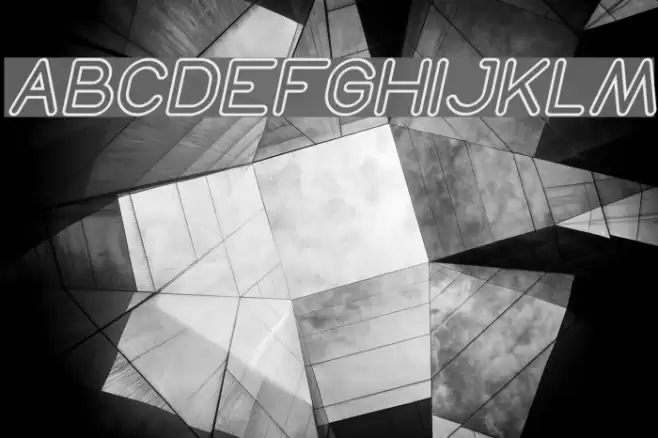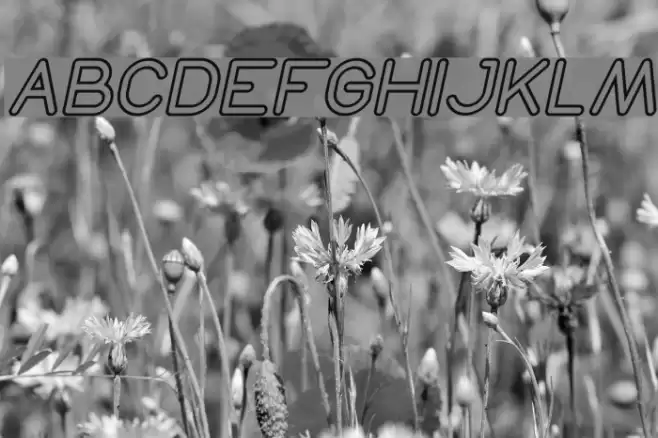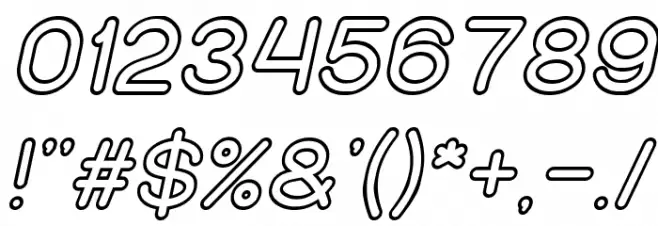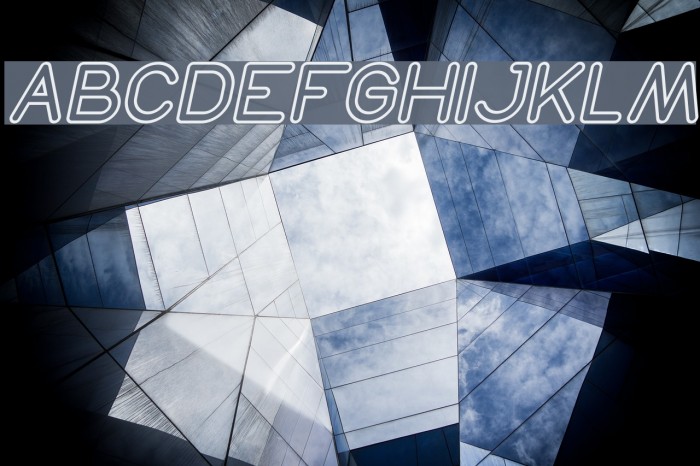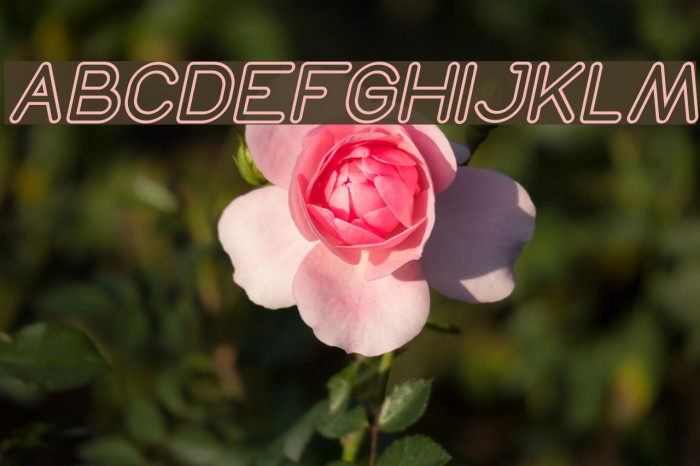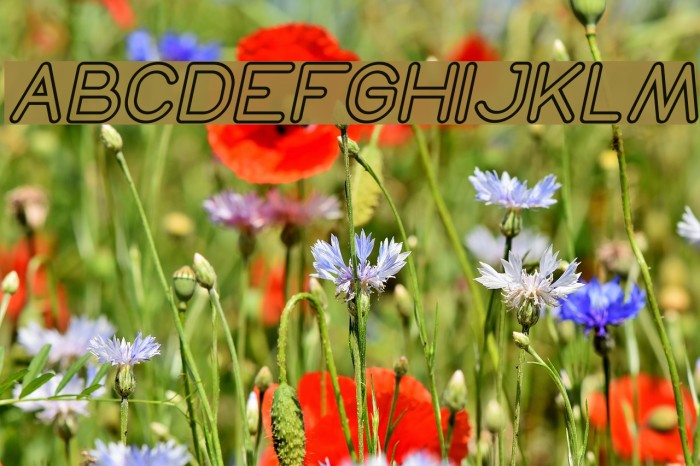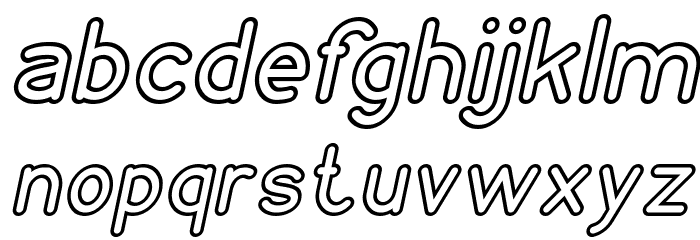
NEON GLOW Italic Font
NEON GLOW Italic Description
This font features a modern, eye-catching design with an outline style that gives it a neon-like appearance. The characters are italicized, adding a dynamic and energetic feel. The uppercase and lowercase letters maintain a consistent style, with rounded edges and a uniform stroke width that enhances readability. The numerals and special characters are designed to match the overall aesthetic, making them suitable for various creative applications. This font's unique outline effect makes it stand out, perfect for projects that require a bold and futuristic look.
A modern, italicized outline font with a neon-like appearance from Uncategorized fonts.
- Proposed Projects: Ideal for neon signs, digital art, posters, and branding that requires a futuristic and vibrant look.